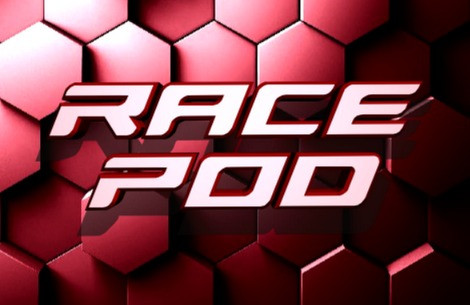
Race Pod Font
Race Pod Font is an extra elongated sci-fi/techno font on steroids with lots of curves built into the characters. The upper case letters all have stencil cut-outs while the lower case for each letter does not, making this like two related fonts in on!. The font family has a total of 28 wide ranging variations, and each includes an extended Latin character set (including accents and the Euro). Both OTF and TTF are included in the ZIP file.